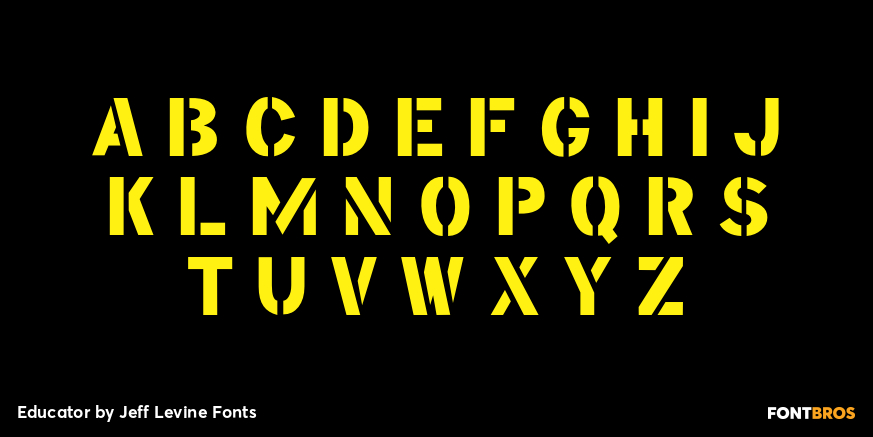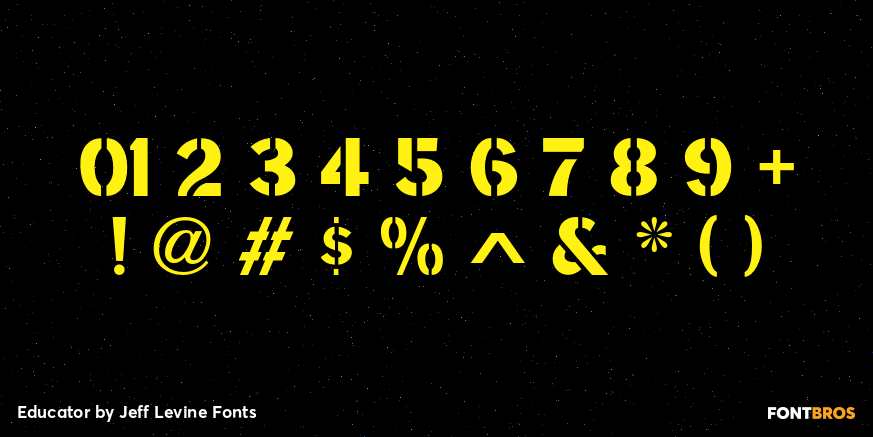
Educator
Educator JNL joins the large library of Jeff Levine's stencil fonts and was re-drawn from a set of individual letter stencils with the distinctive look of Franklin Gothic. All of the irregularities of the original die-cut letter forms were left intact, giving a "real world" look to the font.
Educator JNL Oblique
Educator JNL Regular
Educator by Jeff Levine Fonts